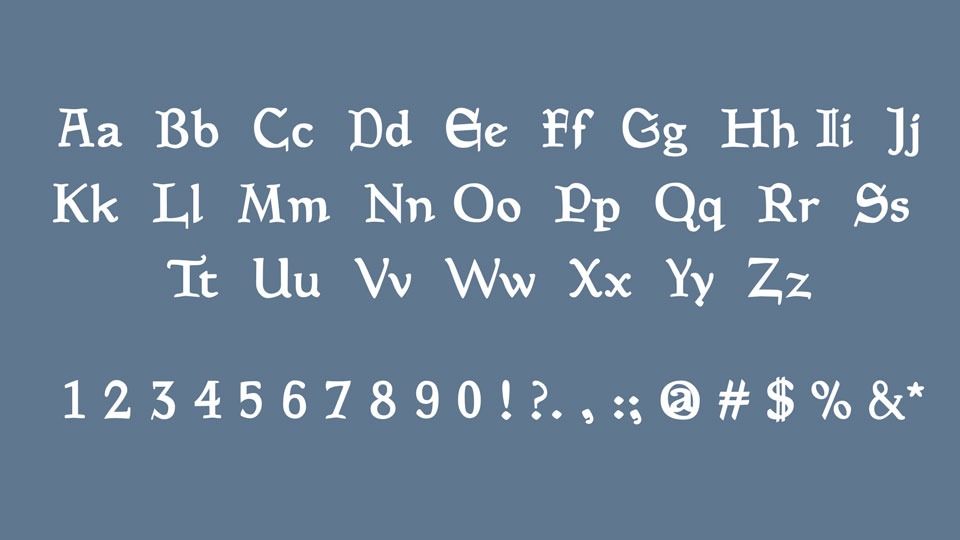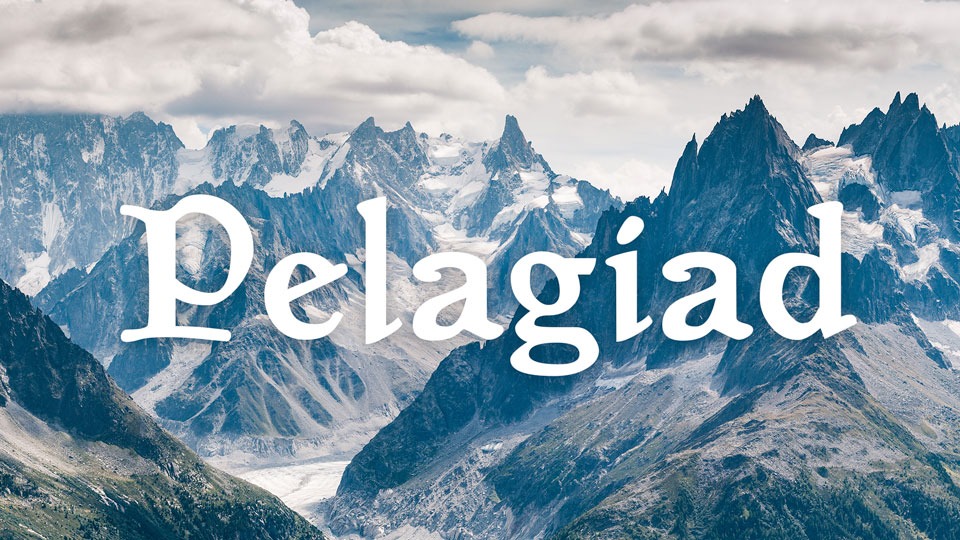
Pelagiad Serif Font
It’s an elegant serif display that matches perfectly with any leisure and travelling purpose. Inspired by Magic Cards and EF Medieva. The font contains uppercase and lowercase letters, numbers and symbols, supports multilanguage. Pelagiad is designed for use in the OpenMW game engine, but can be used for any purpose.